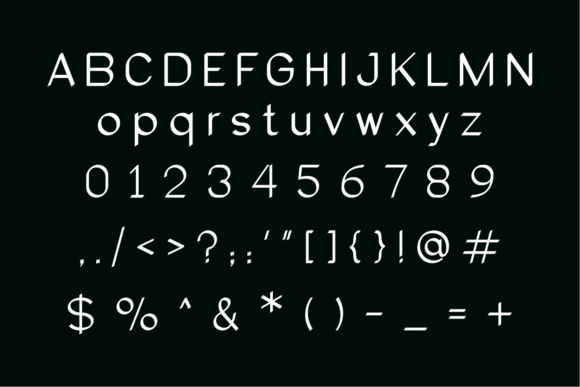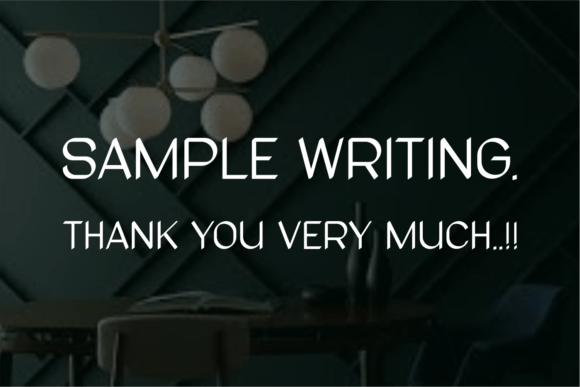
Introduction to Rogist Font
Have you ever been working on a creative project, pouring your heart and soul into it, and then, just as you’re about to hit publish, you realize that the font you’ve chosen doesn’t quite match the vibe you’re going for? That’s where the Rogist Font comes in – a cool and unique sans serif font that’s sure to elevate your design to the next level.
As a designer, you know how important it is to have access to high-quality design resources that can help bring your vision to life. The Rogist Font is a valuable addition to any font library, offering a level of detail and craftsmanship that’s hard to find elsewhere. Whether you’re working on a logo, a brochure, or a website, this font has the potential to add a touch of sophistication and style that will set your work apart from the crowd.
Key Features of Rogist Font
- Perfect design resource for graphic designers, artists, and creatives, offering a unique and modern aesthetic.
- Unique characteristics include its modern, clean, and elegant design, making it a great addition to any creative project.
Honest Review: Rogist Font
As a designer, I’m always on the lookout for high-quality design resources that can elevate my creative project. I recently had the chance to work with the Rogist Font, and I’m here to share my honest review.
- ✨ Clean and modern aesthetic that’s perfect for a variety of design applications
- ⚠️ Limited font styles and weights, which may not be suitable for complex design projects
- ⚠️ Not ideal for use in small text sizes, as the font may become pixelated
Overall, I think the Rogist Font is a solid design resource that can add a touch of sophistication to your creative project. While it may not be perfect, its high quality and free download option make it a great option for designers looking for a reliable font.
Rogist Font
Tips for Getting the Most Out of Rogist Font
Use Rogist Font with a transparent background to create a clean and elegant design. Experiment with different font sizes and styles to add visual interest to your design. You can also use Rogist Font in combination with other design resources to create a unique look.
Rogist Font is commonly used in logo designs, business cards, and brochures. It’s also a popular choice for creating high-quality design resources for creative projects. With its transparent background and high-quality design, Rogist Font is a versatile resource that can be used in a variety of design applications.